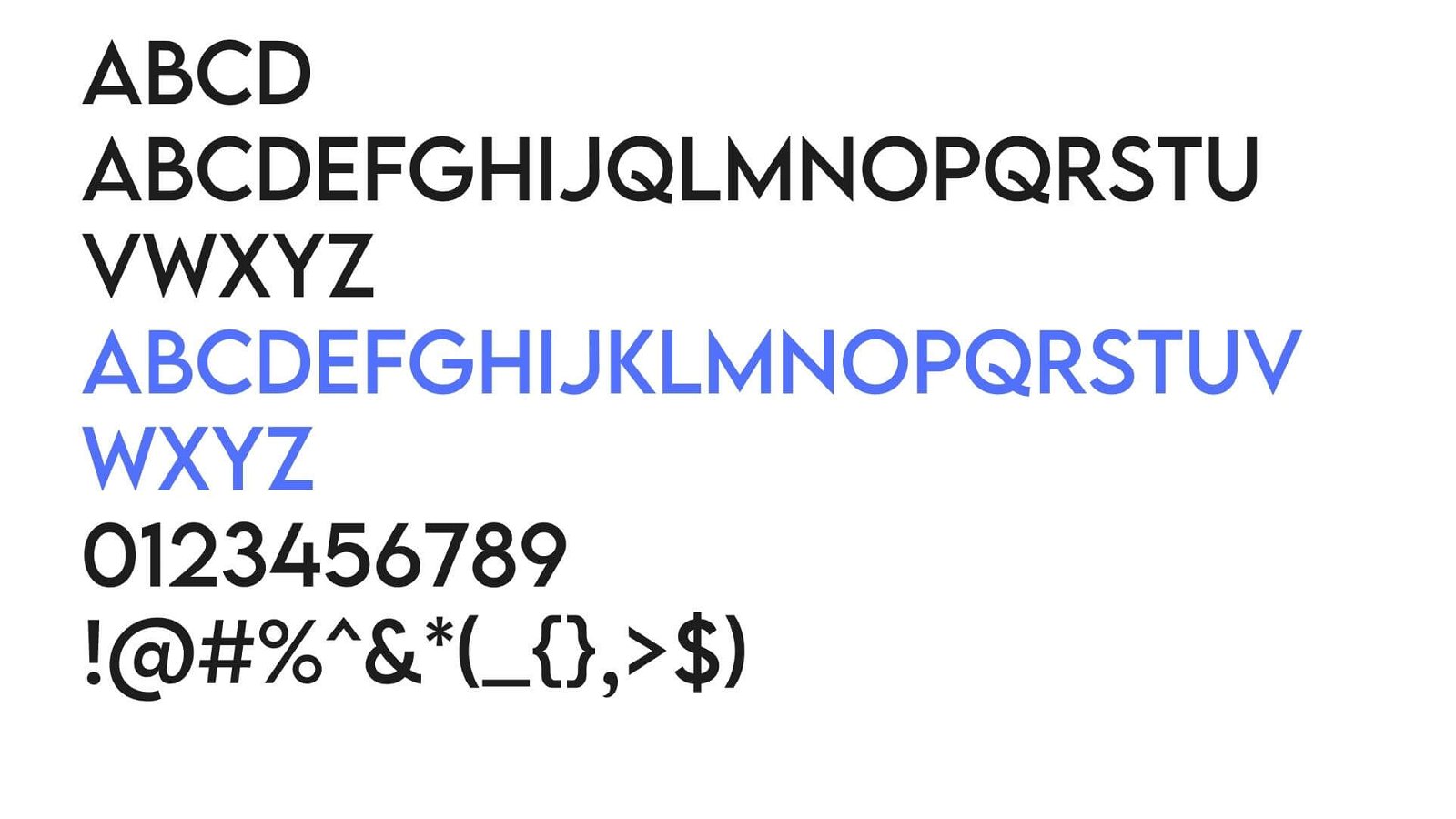
This is the great sans-serif typeface that comes with different strokes and weights and the use of them will help you in adding the mid-century architecture feeling to both the designs and content.
You can easily see the use of this typeface on a number of different websites and when this font is used with campground font this will provide the distinctive sharp corners and then this used with a light stroke it will become great.
This is the pro typeface that is mostly used because of its copy and paste function and this comes with the extended Latin, lowercase letters and there is huge language support of this typeface and this is perfect for display projects.
Reason to Use Lemon Milk Font
This typeface is mostly used for a number of website styles from the beginning and in this font, you will also find different thin and heavy variables that can be used for different projects.
This font along with the styling of audiowide font can easily be used for Texts, Headings, websites, posters, and the use of this font will provide you an exciting looking and it will make that worth appreciating.
Lemon Milk Font View
The looking of this typeface has been shared with you in the below image.
Lemon Milk Font Family (Includes Total 8 Typeface)
- Lemon Milk Regular
- Lemon Milk Regular Italic
- Lemon Milk Light
- Lemon Milk Light Italic
- Lemon Milk Medium
- Lemon Milk Medium Italic
- Lemon Milk Bold
- Lemon Milk Bold Italic
What Type of Font Is Lemon Milk?
This is one of the most used typefaces that provides the mid-century architecture feeling to all types of designs.
Is This a Good Font to Use? Yes, it is a great typeface to use in different professional websites and projects and it is being used by different designers. What Is a Lemon Milk Font Generator? A generator is a text-based tool that is available for free of cost and this will help you in creating different shapes using this font. What is the best alternative to This Font? Rae Dunn Font is the best alternative to this typeface.